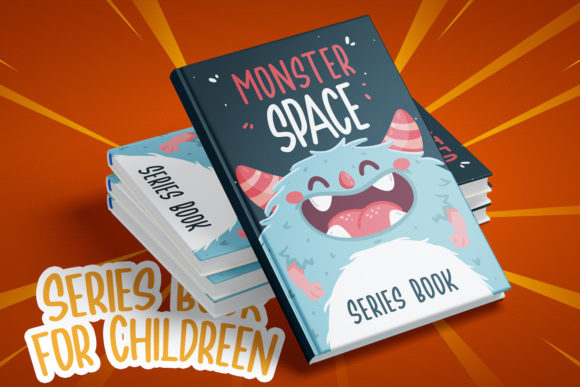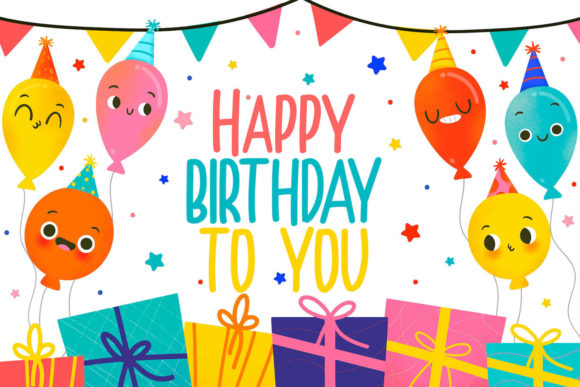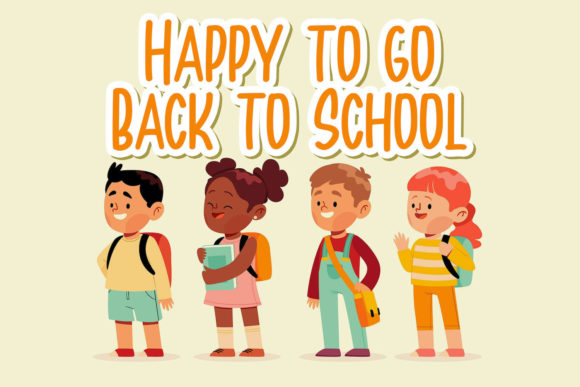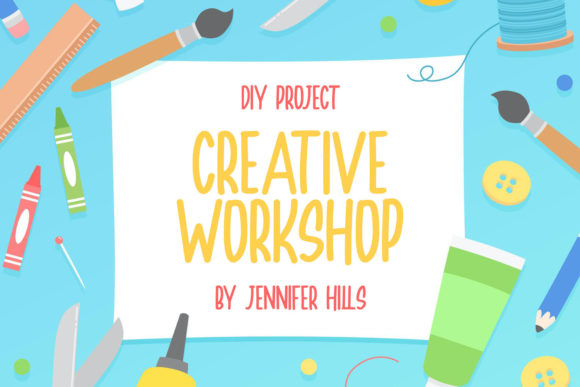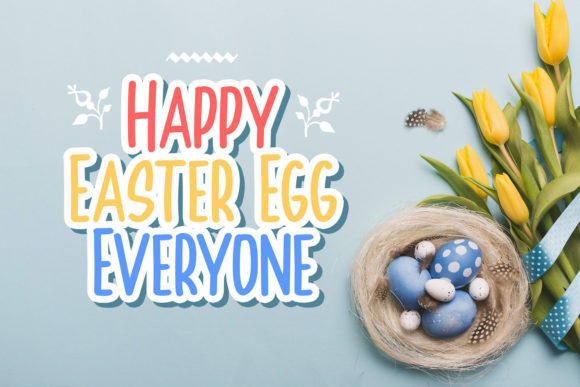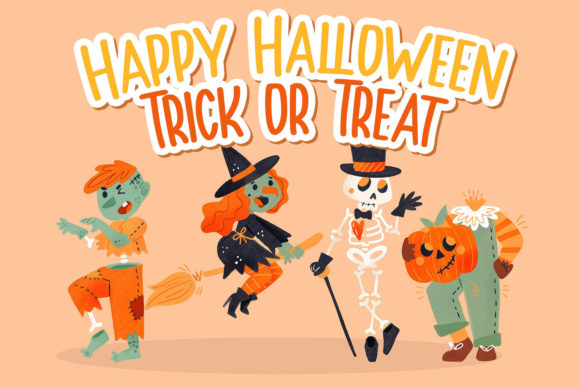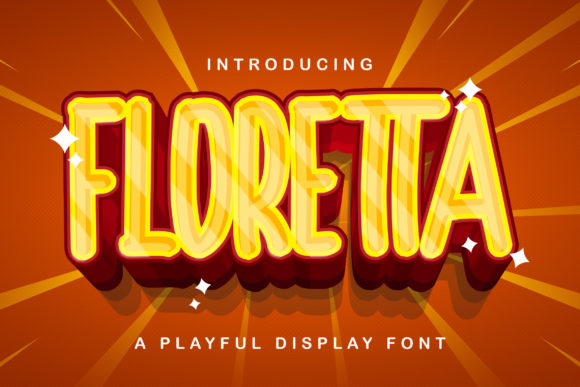
Introducing Floretta Font: The Perfect Addition to Your Design Projects
Are you looking for a font that exudes playfulness and freshness? Look no further than Floretta Font! This fun and cute display font is perfect for a variety of design projects, especially those geared towards children or schools. In this article, we’ll dive into the features and benefits of Floretta Font, and explore the many ways you can use it to bring your designs to life.
What is Floretta Font?
Floretta Font is a display font designed to add a touch of whimsy and fun to your designs. Its playful and fresh aesthetic makes it an excellent choice for projects that require a youthful and energetic feel. The font’s unique character set and bold lines make it perfect for headlines, titles, and other display text.
Key Features of Floretta Font
- Playful and Fresh Design: Floretta Font boasts a unique and lively design that’s sure to capture the attention of your audience.
- Cute and Fun: The font’s adorable characters and lines make it perfect for designs that require a touch of whimsy.
- Highly Versatile: Floretta Font can be used for a wide range of design projects, from children’s magazines and storybooks to stationery and more.
- Easily Readable: Despite its playful design, Floretta Font remains easily readable, making it perfect for both print and digital applications.
Use Cases for Floretta Font
Floretta Font’s versatility makes it suitable for a variety of design projects. Here are some ideas to get you started:
- Children’s Magazines: Add a playful touch to your children’s magazine with Floretta Font. Use it for headlines, titles, and other display text to create a fun and engaging reading experience.
- Storybooks: Bring your storybooks to life with Floretta Font. Its cute and playful design makes it perfect for children’s books, early readers, and even adult fiction.
- Stationery: Add a personal touch to your stationery with Floretta Font. Use it for greeting cards, invitations, and other paper crafts.
- School Projects: Floretta Font is perfect for school projects, presentations, and posters. Its playful design makes it an excellent choice for educational materials.
Why Designers and Crafters Love Floretta Font
Floretta Font has quickly become a favorite among designers and crafters. Here are some reasons why:
- Customizable: The font’s unique character set and lines make it easy to customize and pair with other fonts.
- Time-Saving: With Floretta Font, you can create professional-looking designs in no time. Its easily readable and playful design saves you time and effort.
Tips for Using Floretta Font
To get the most out of Floretta Font, here are some tips to keep in mind:
- Pair with Other Fonts: Experiment with pairing Floretta Font with other fonts to create a unique and visually appealing design.
- Use for Headlines and Titles: Floretta Font is perfect for headlines and titles. Use it to add a playful touch to your design.
- Experiment with Colors: Floretta Font looks great in a variety of colors. Experiment with different colors to find the perfect combination for your design.
Floretta Font is a fun and cute display font that’s perfect for designers and crafters looking to add a playful touch to their designs. Its highly versatile and easily readable design makes it suitable for a wide range of projects, from children’s magazines and storybooks to stationery and more. With its unique character set and lines, Floretta Font is sure to become a favorite among designers and crafters. So why wait? Download Floretta Font today and bring your designs to life!